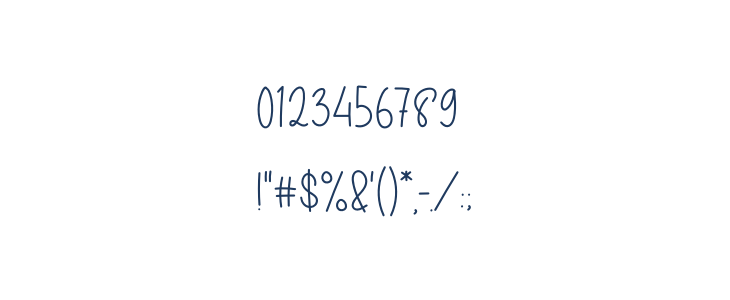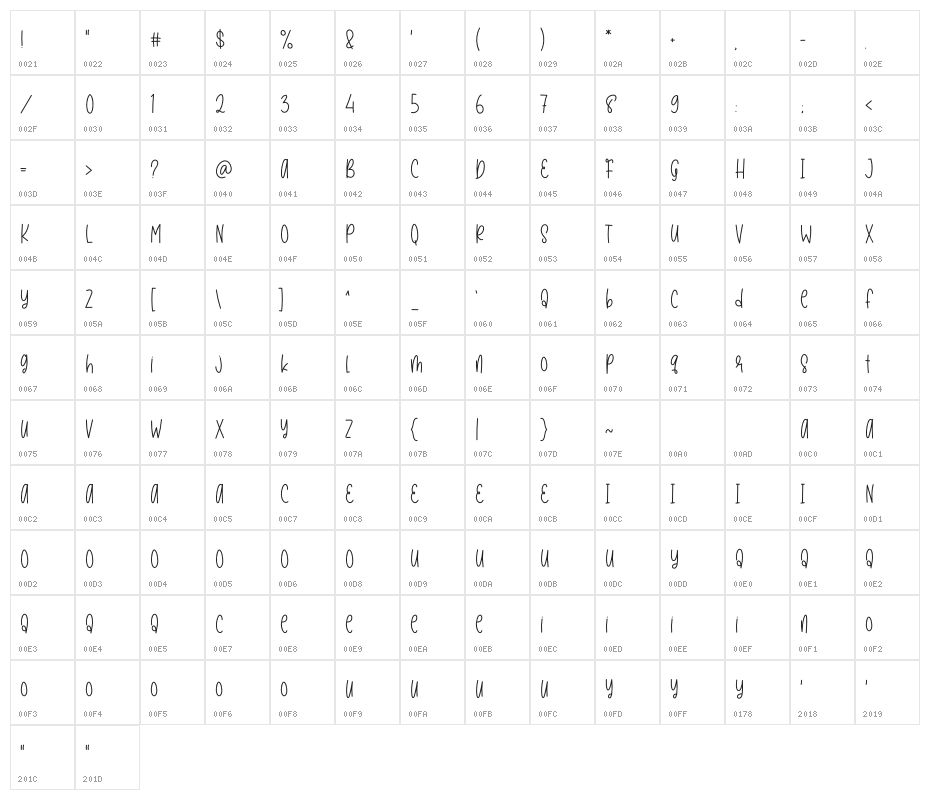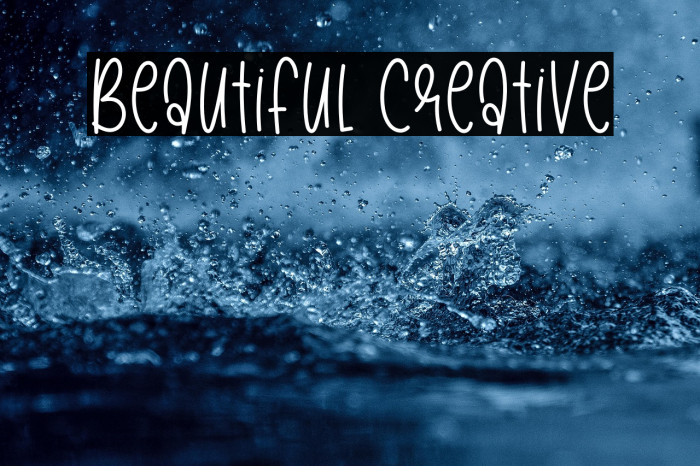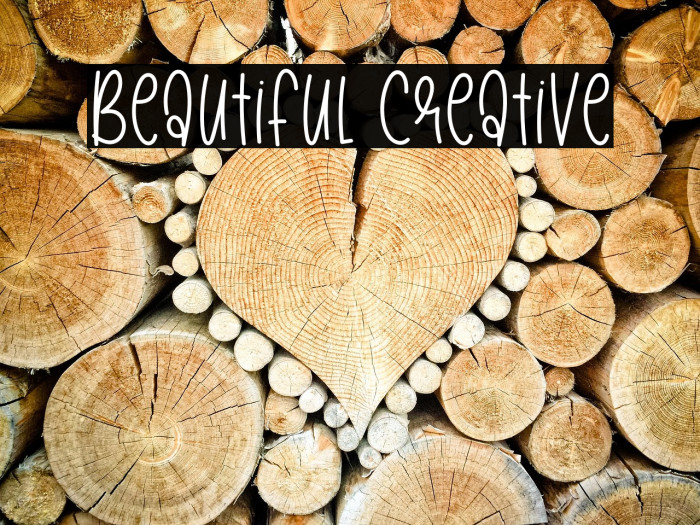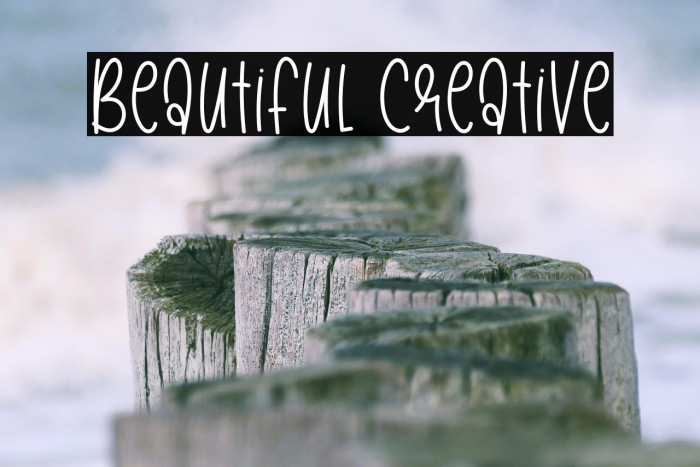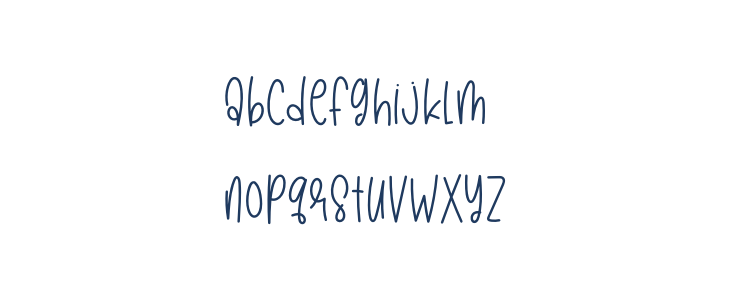
Beautiful Creative Font
Beautiful Creative Description
This font features a playful and whimsical handwritten style, characterized by its fluid and slightly irregular strokes. The letters are tall and narrow, with a consistent baseline that gives a cohesive look. The uppercase letters have a charming, casual elegance, while the lowercase letters maintain a friendly and approachable feel. The numerals are clear and easy to read, matching the overall aesthetic of the alphabet. Special characters are included, adding versatility to the font's usage. The font's design is perfect for projects that require a personal touch, such as invitations, greeting cards, or creative branding.
| Proposed Projects | Ideal for invitations, greeting cards, creative branding, and personal projects. |